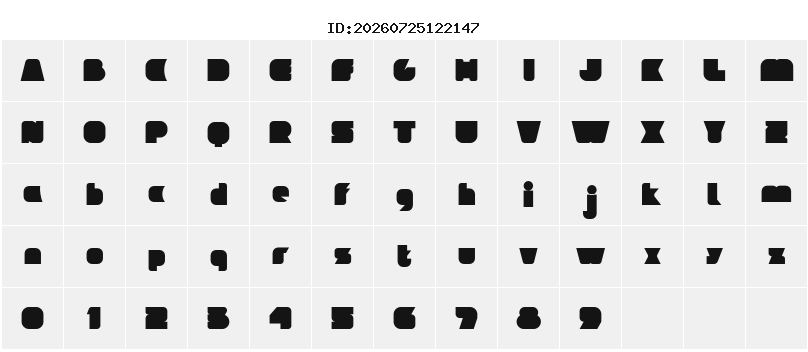
ideoma PSEUDO Preview
• Font Name: ideoma PSEUDO
About ideoma PSEUDO.otf
ideoma PSEUDO.otf is a modern, elegant sans-serif font designed for ultimate readability and visual harmony. Perfect for branding, headlines, web design, and print materials.